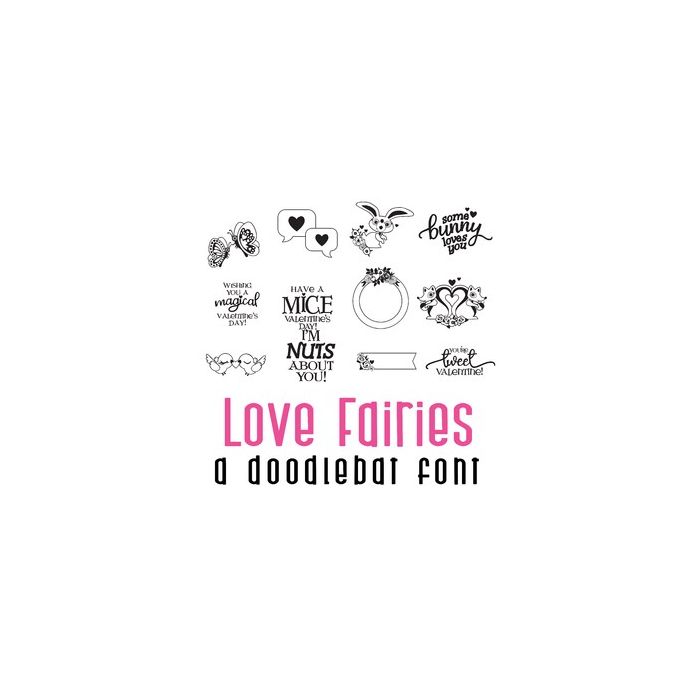
This adorable doodlebat font features 26 love forest animal friends and puns perfect for Valentines, love, parties, decor, card making, crafts, planner stickers, classrooms, gifts, scrapbook pages and more!